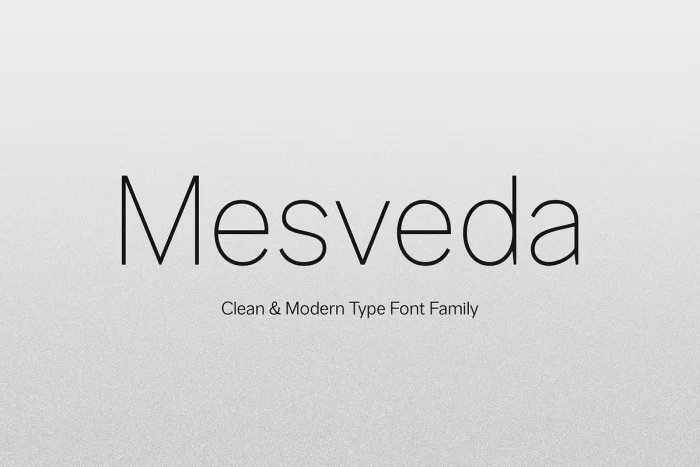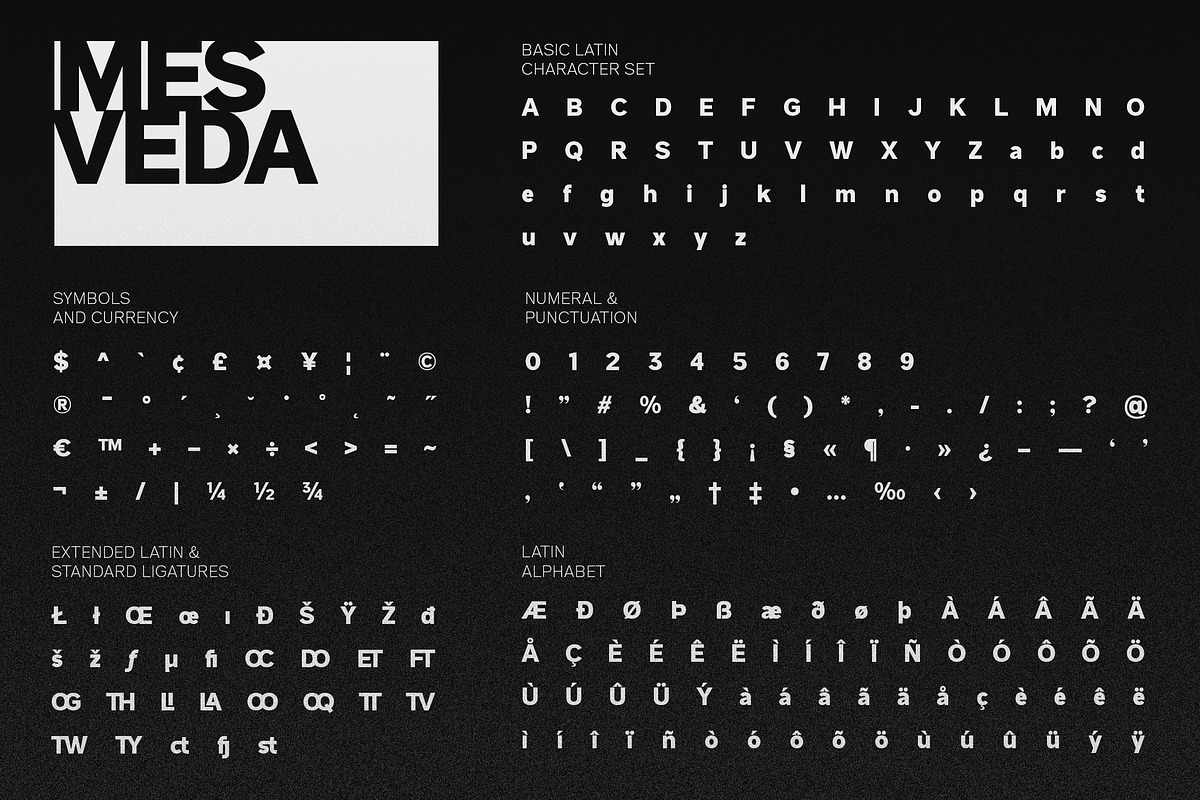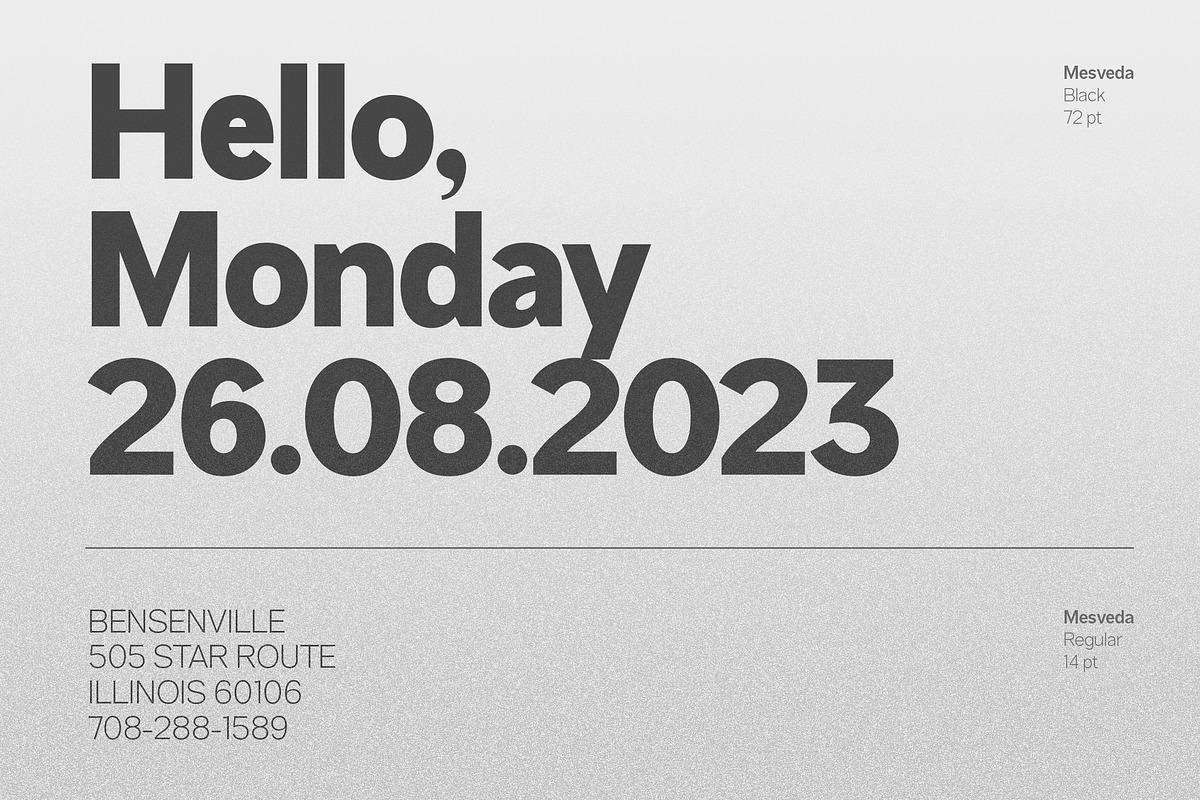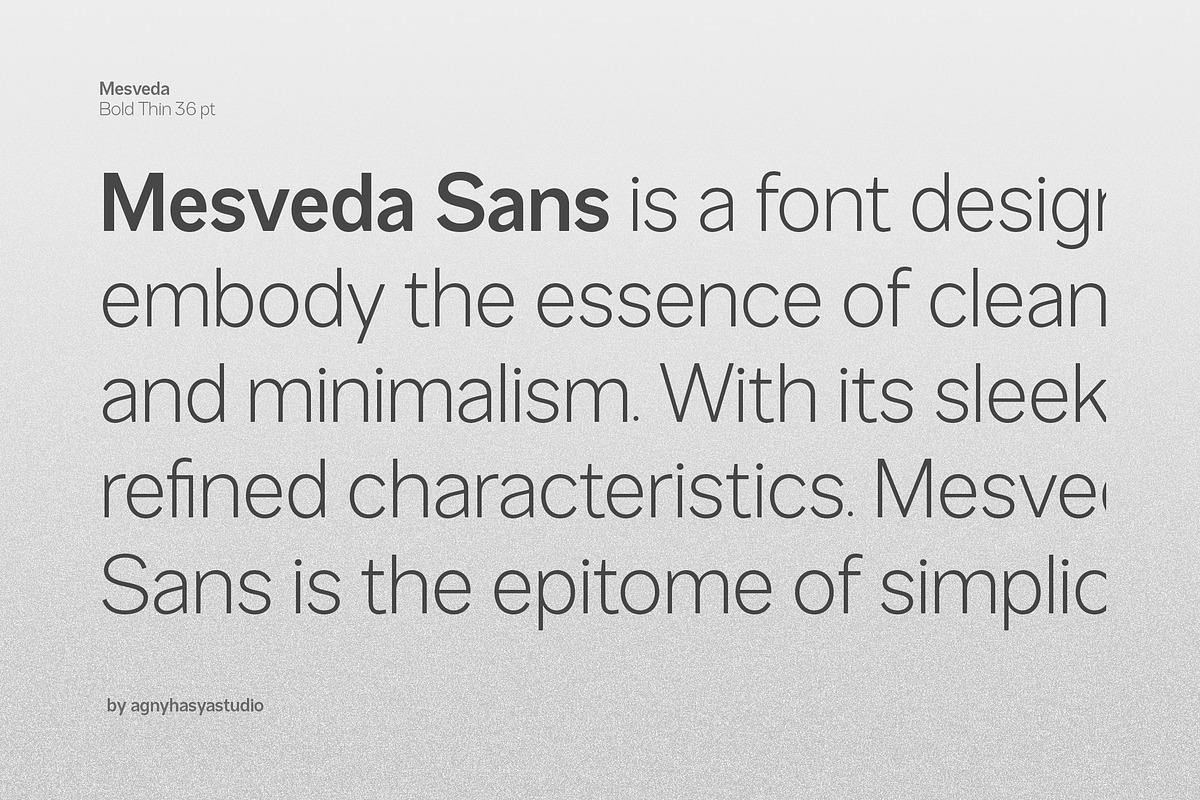
Mesveda is a clean modern sans serif font family, Simple Aesthetic yet Minimalist. It is Versatile and Variable and comes in 14 styles in weights from thin to bold including italics. Featured with Uppercase and Lowercase, Numeral and Punctuation, Multilingual Support, and Opentype Features.
Mesveda Clean Modern Font